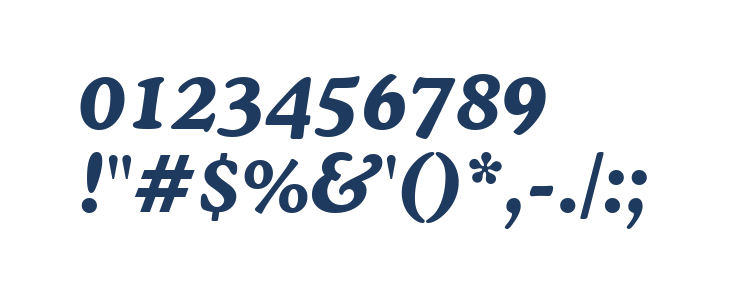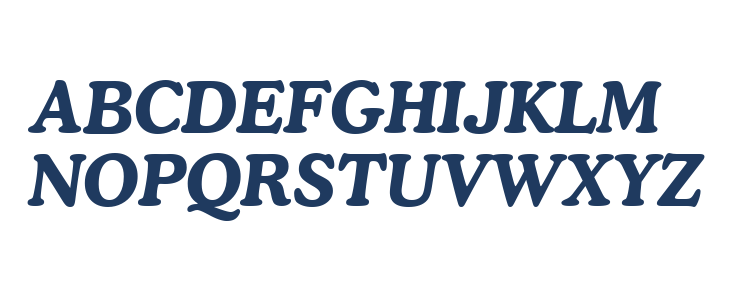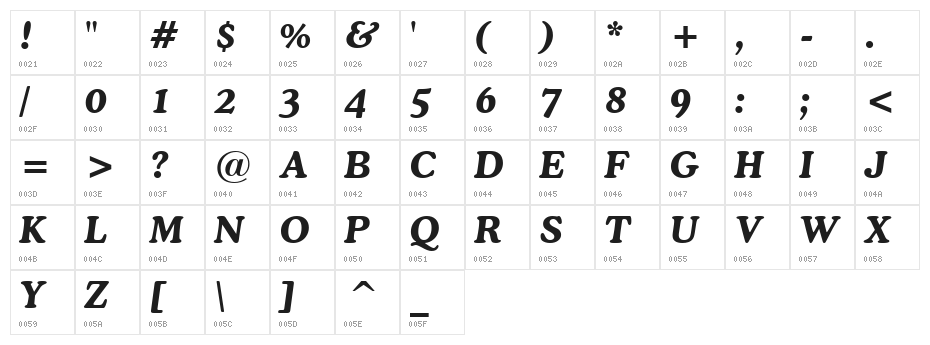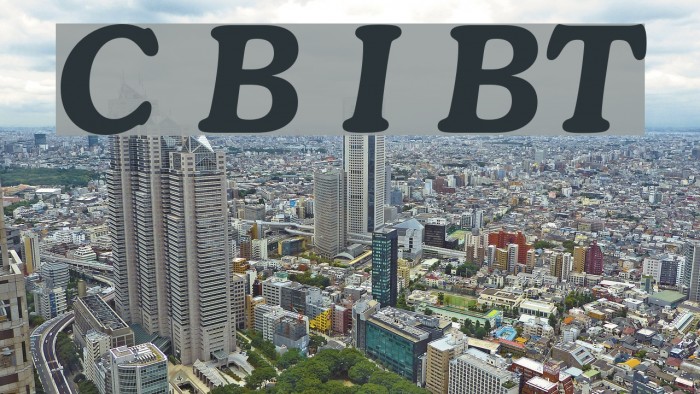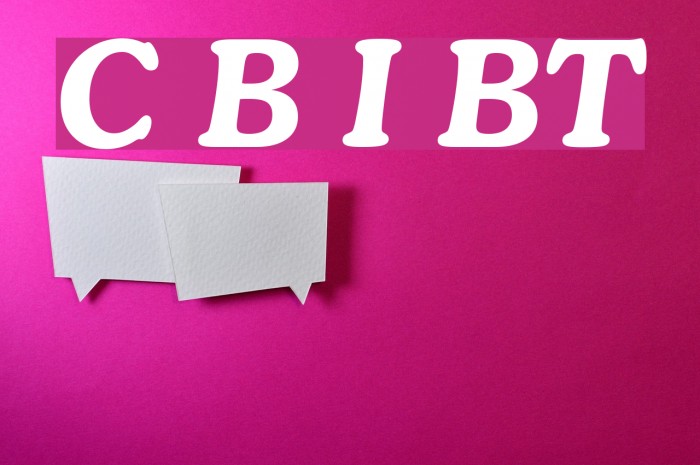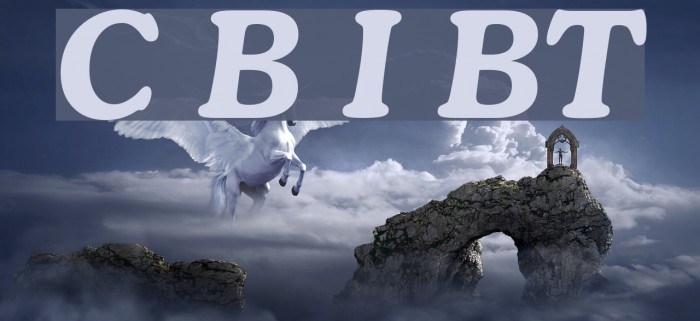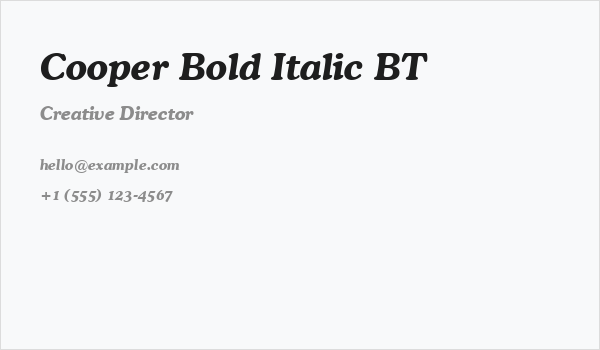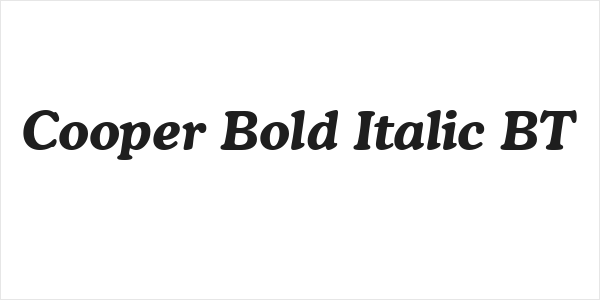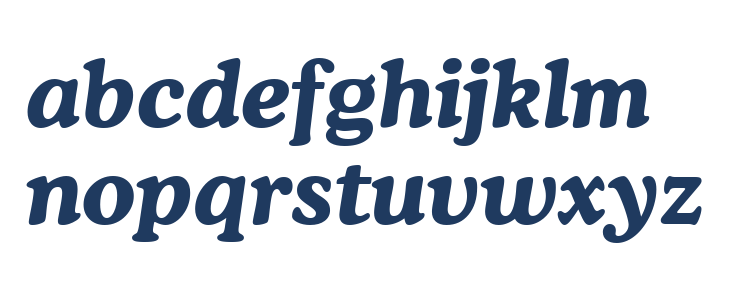
Cooper Bold Italic BT Font
Cooper Bold Italic BT Description
This font features a bold and italicized style with a playful and rounded appearance. The characters have a smooth and flowing design, giving them a friendly and approachable look. The uppercase letters are robust and slightly slanted, while the lowercase letters maintain a consistent and harmonious flow. The numerals are well-proportioned and align seamlessly with the overall style. Special characters are distinct and maintain the font's cohesive aesthetic. The font's boldness and italic nature make it stand out, suitable for attention-grabbing text.